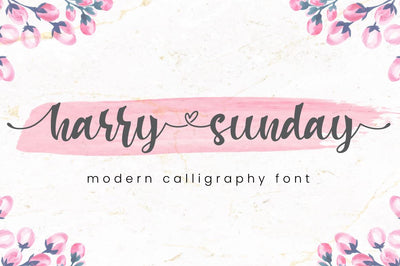
Harry Sunday - Script Font
harry sunday is a delicate and incredibly distinct handwritten font with 3 stylistic set. Fall in love with its incredibly versatile style and use it to create spectacular designs!
harry sunday is perfect for branding, logo, invitation, stationery, social media post, product packaging, merchandise,
blog design, game titles, cute style design, Book/Cover Title and more.
- ligatures
- Beginning & Ending Swash